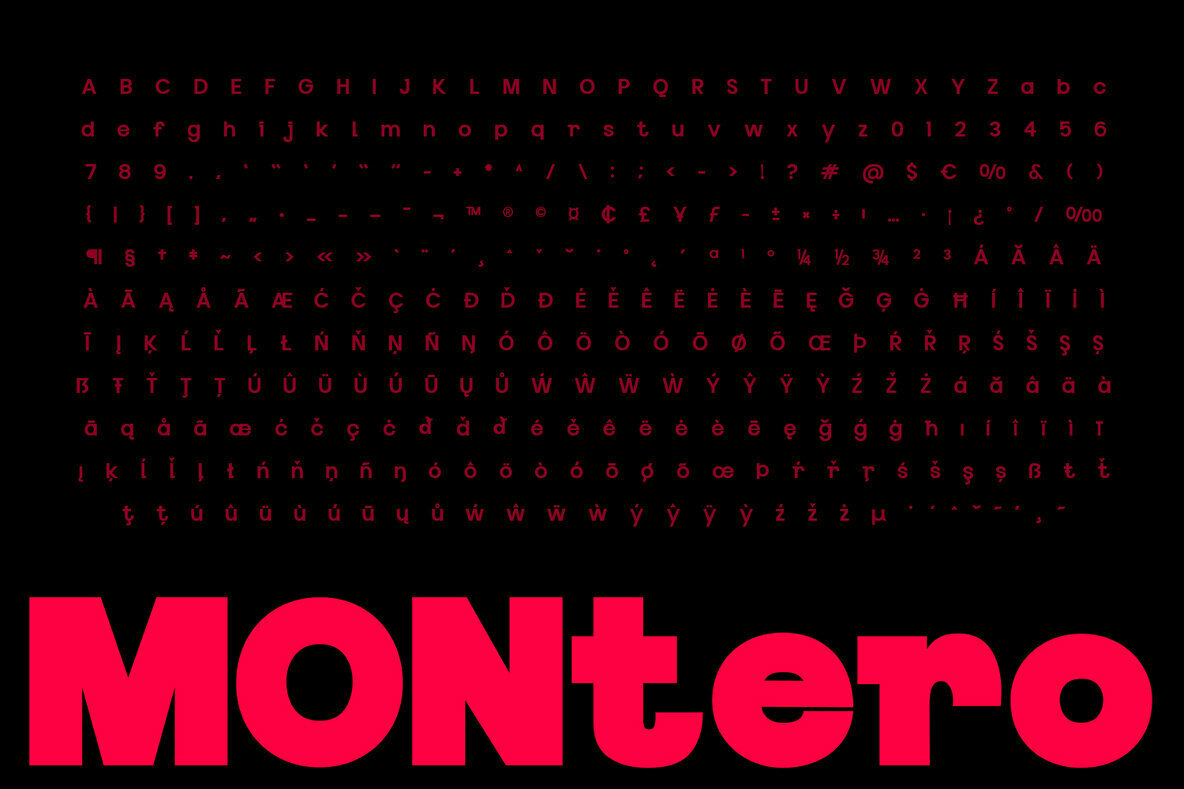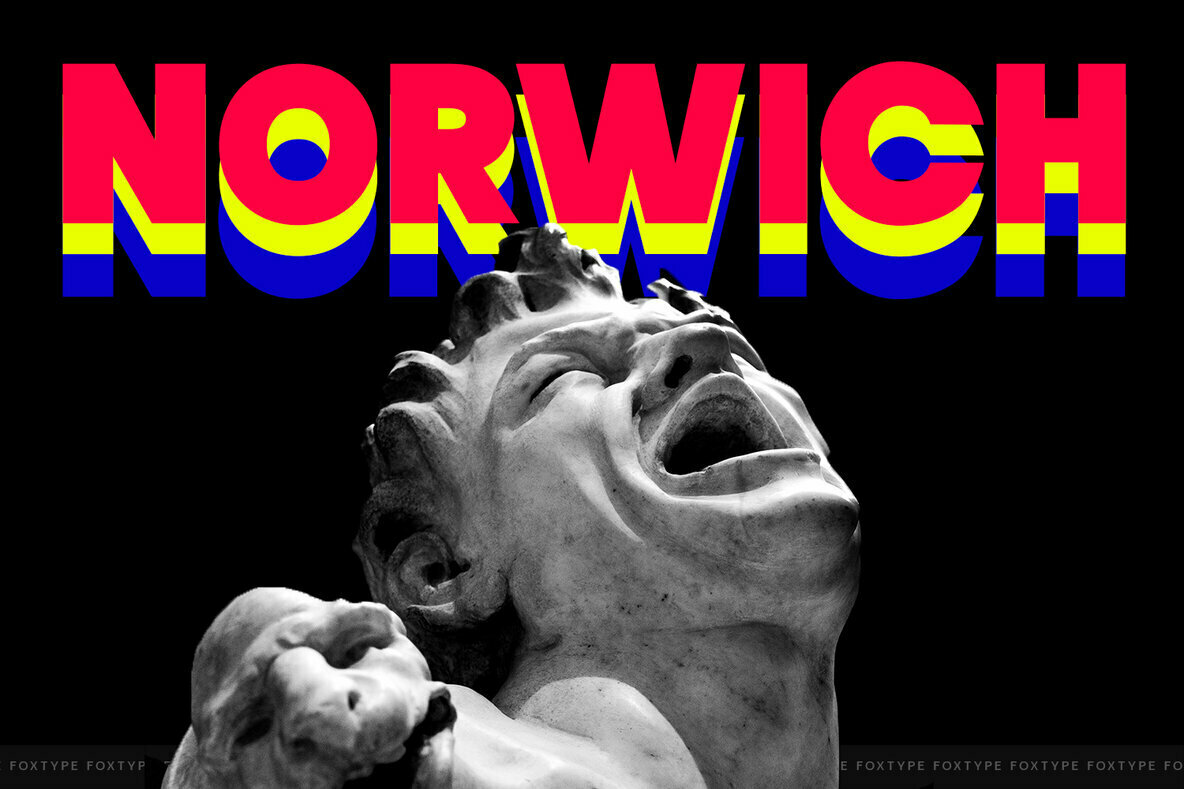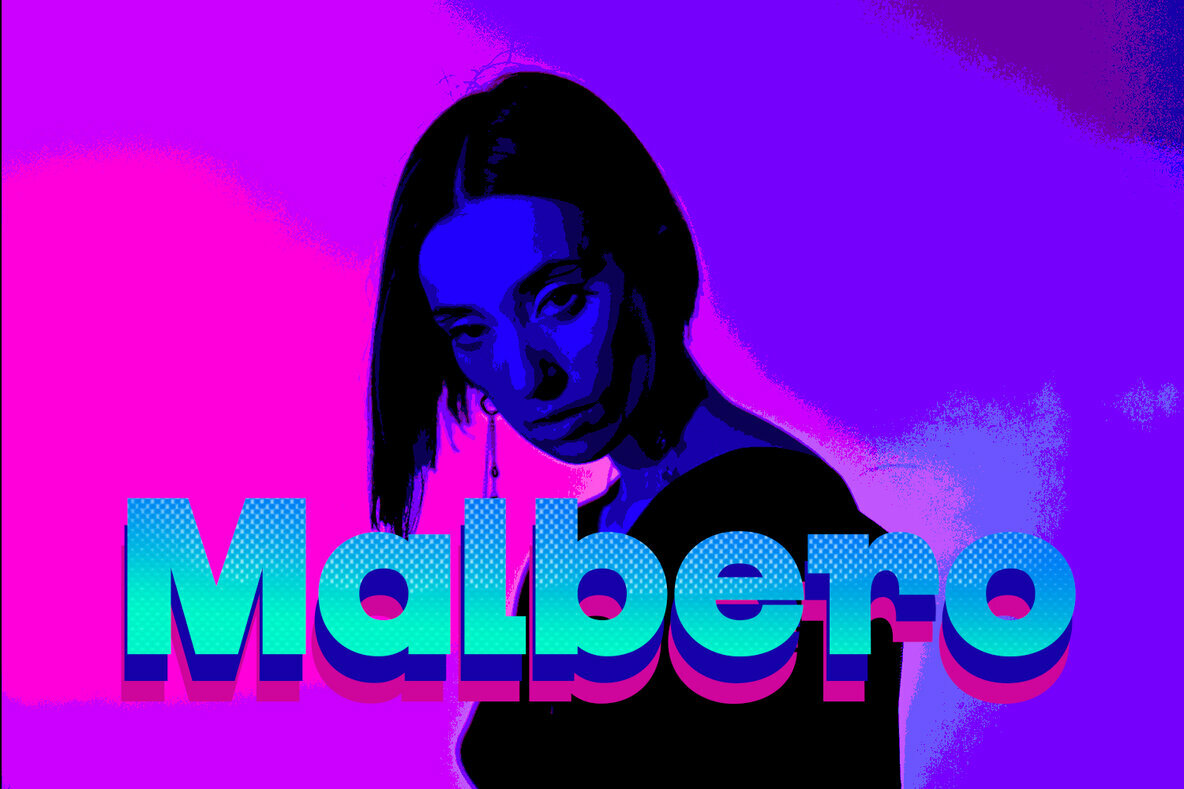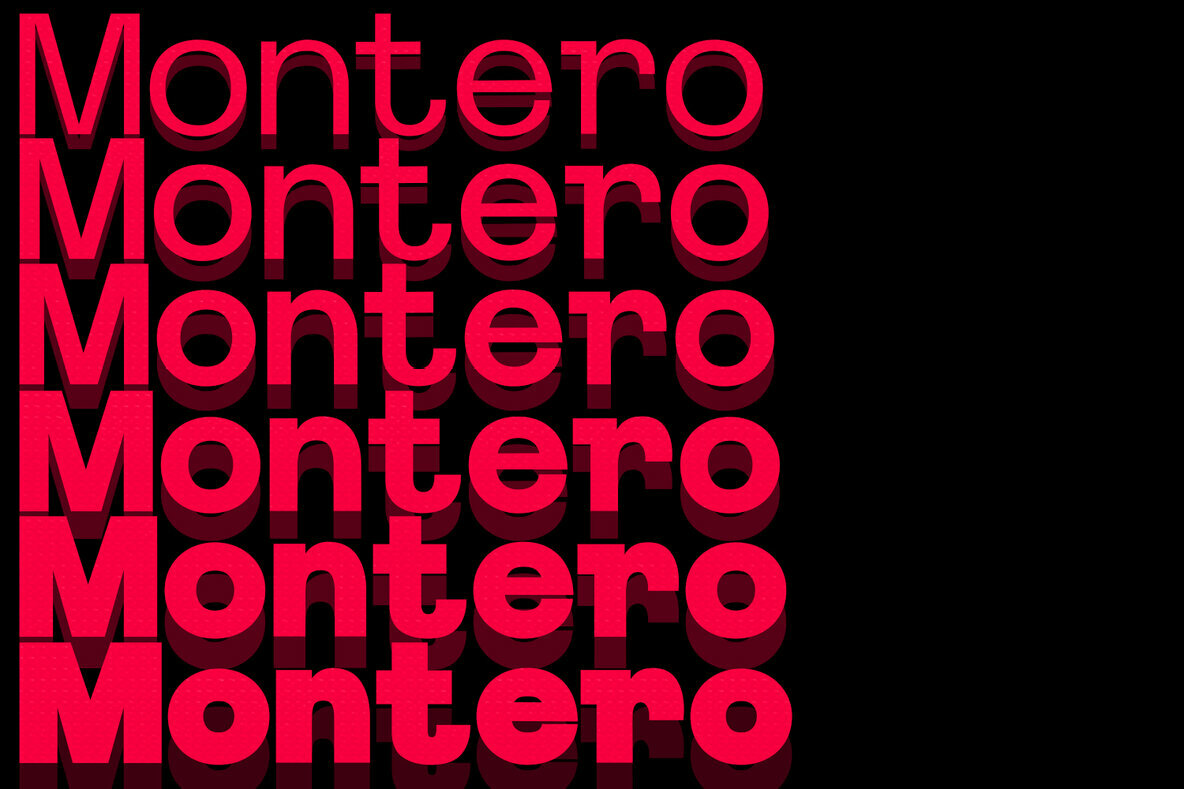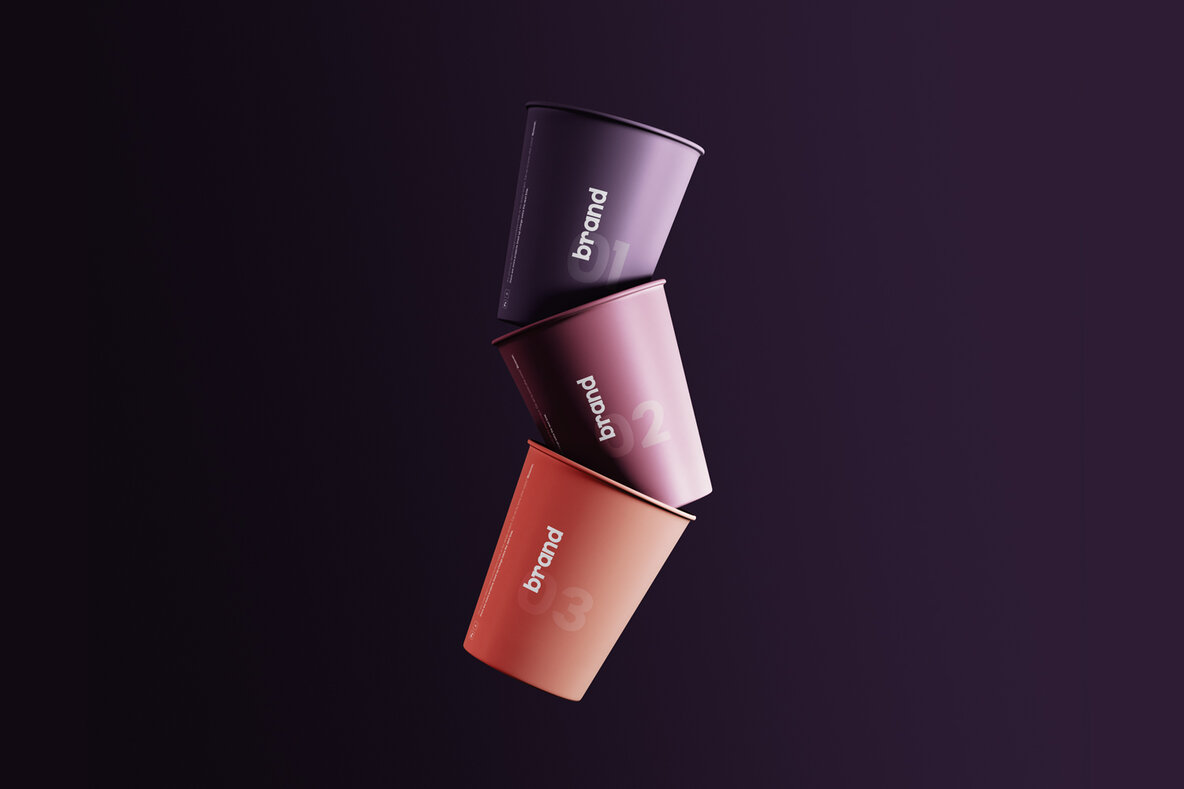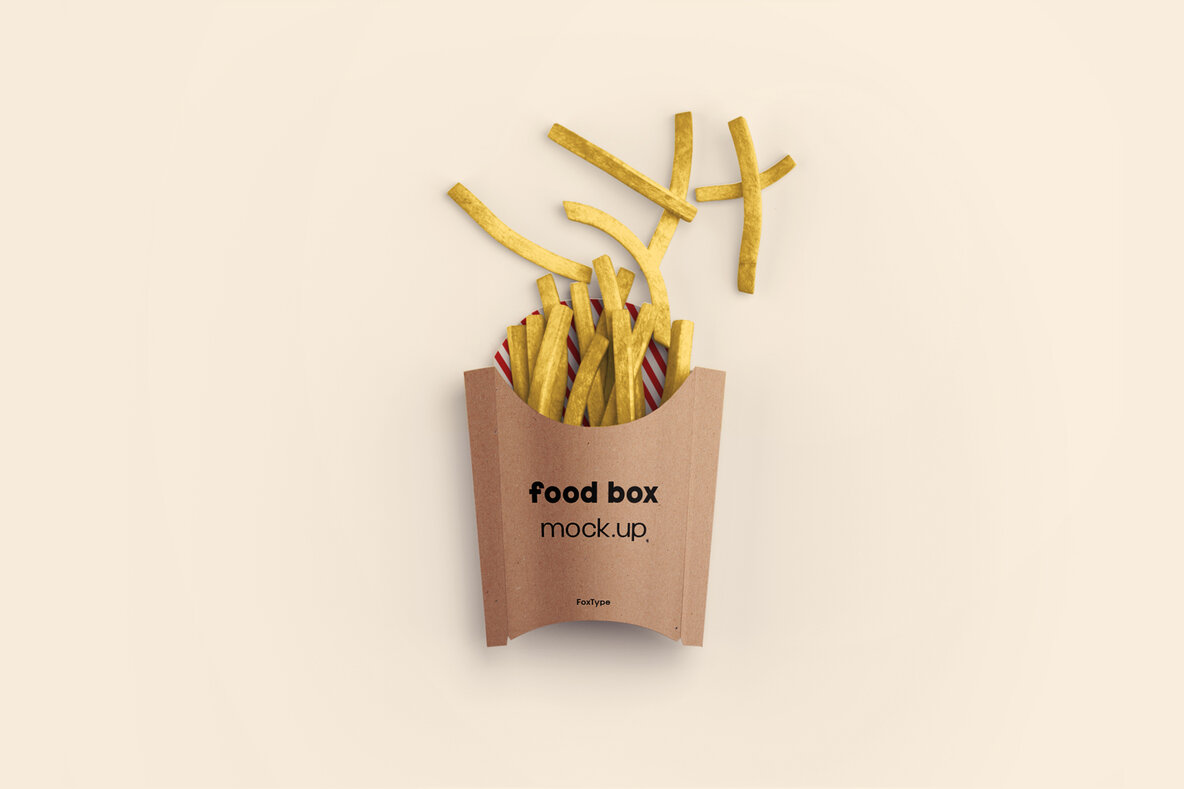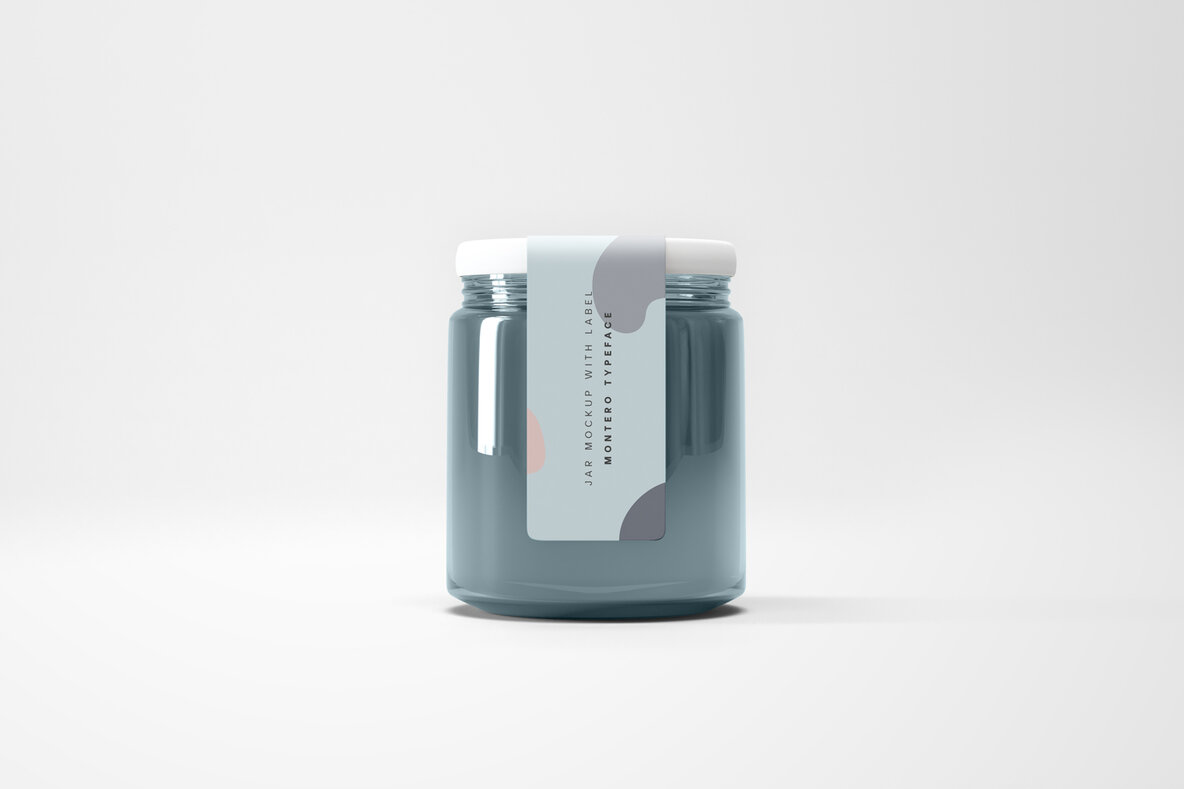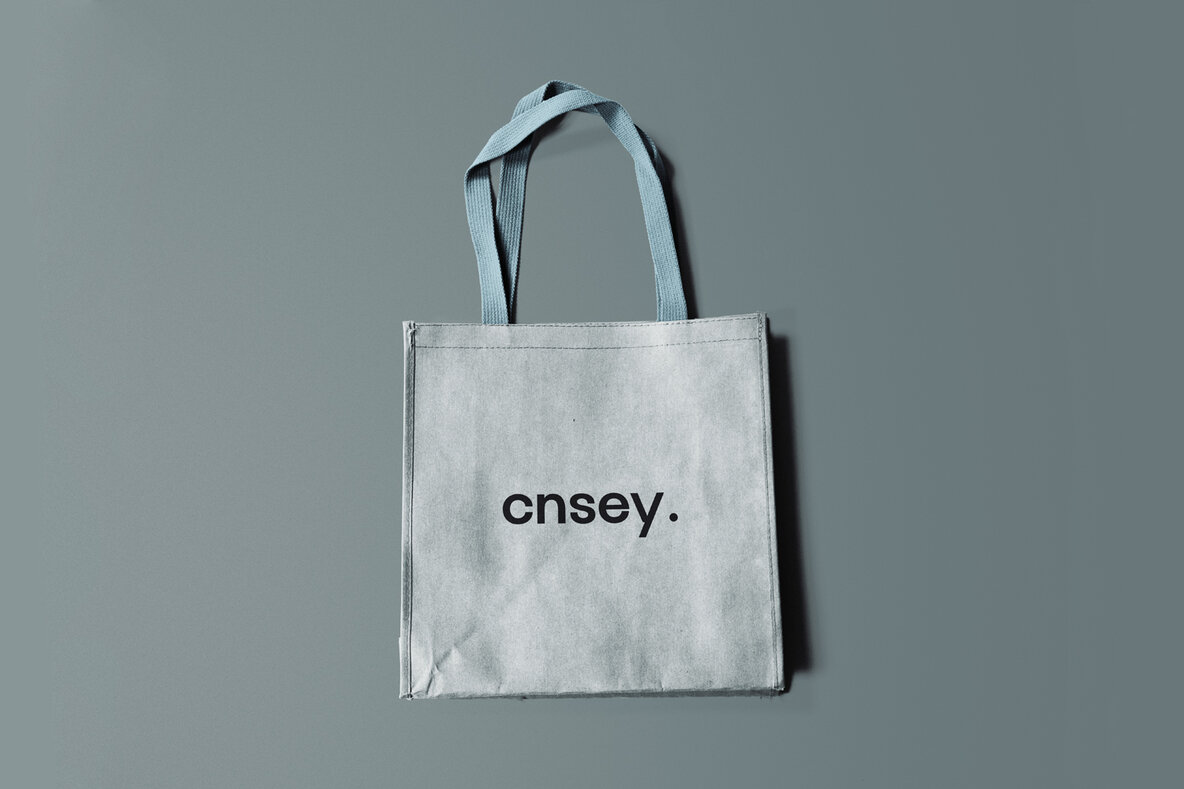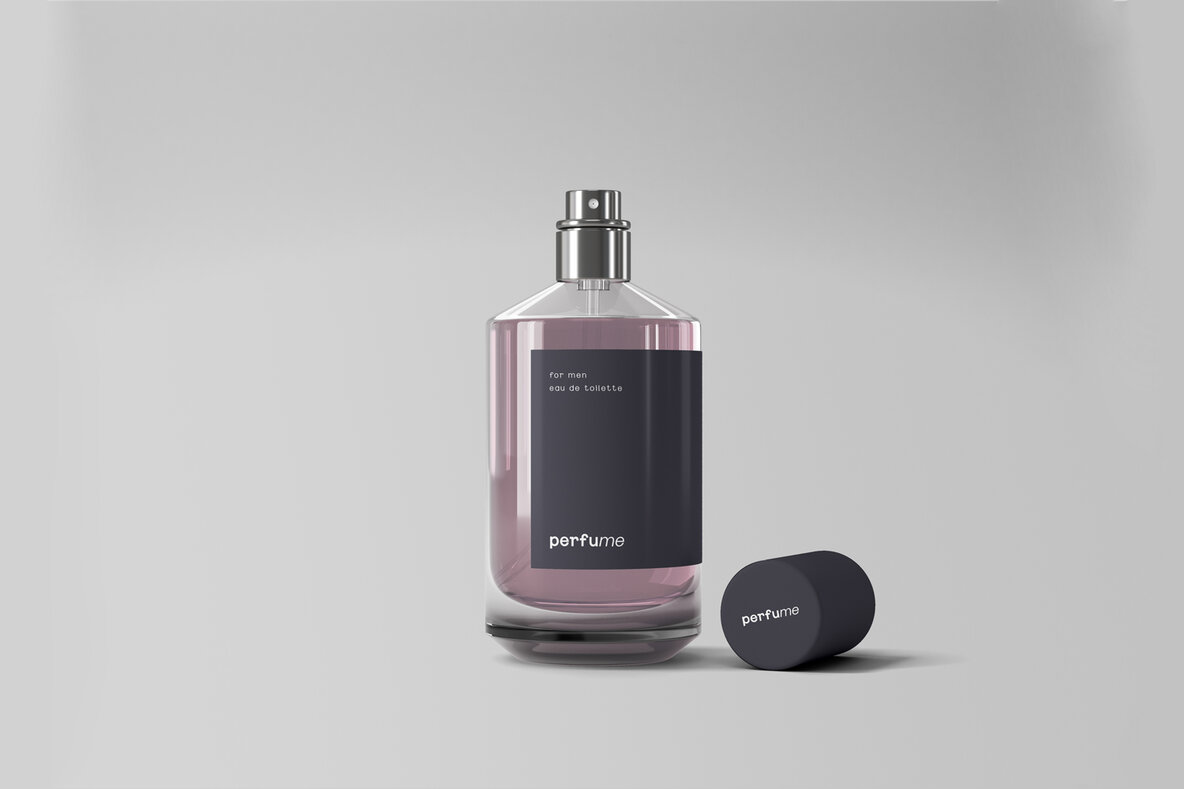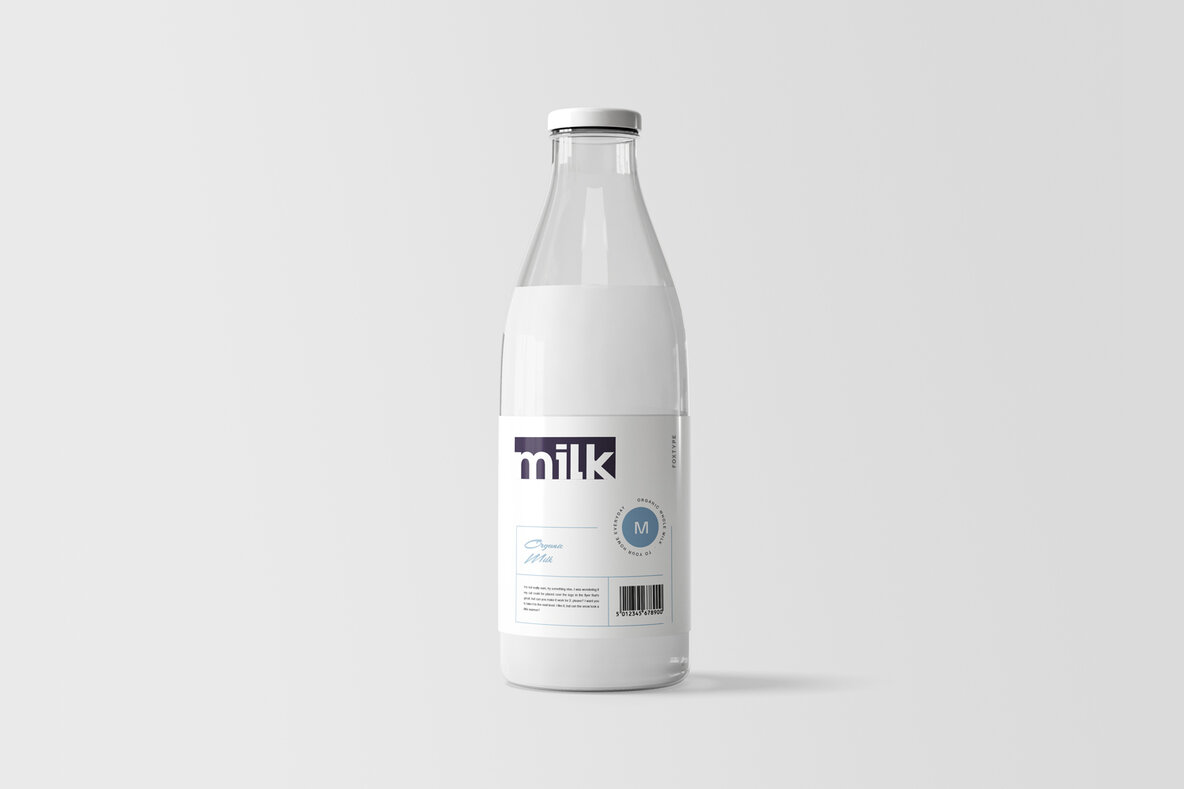
Montero Display Font
Introducing Montero Display, a sophisticated typeface by FoxType Co. This luxury font family combines strict letterforms with modern touches, maintaining both elegance and legibility. Its popularity is evident in applications ranging from logos to magazines and film titles. Montero Display is particularly suited for branding, headlines, captions, and posters. Featuring six distinct weights, Montero Display offers flexibility for various design projects. Each weight supports a comprehensive range of characters, ensuring that your design remains both impactful and clear across different media.Montero Display: Luxury and Versatility in Typography